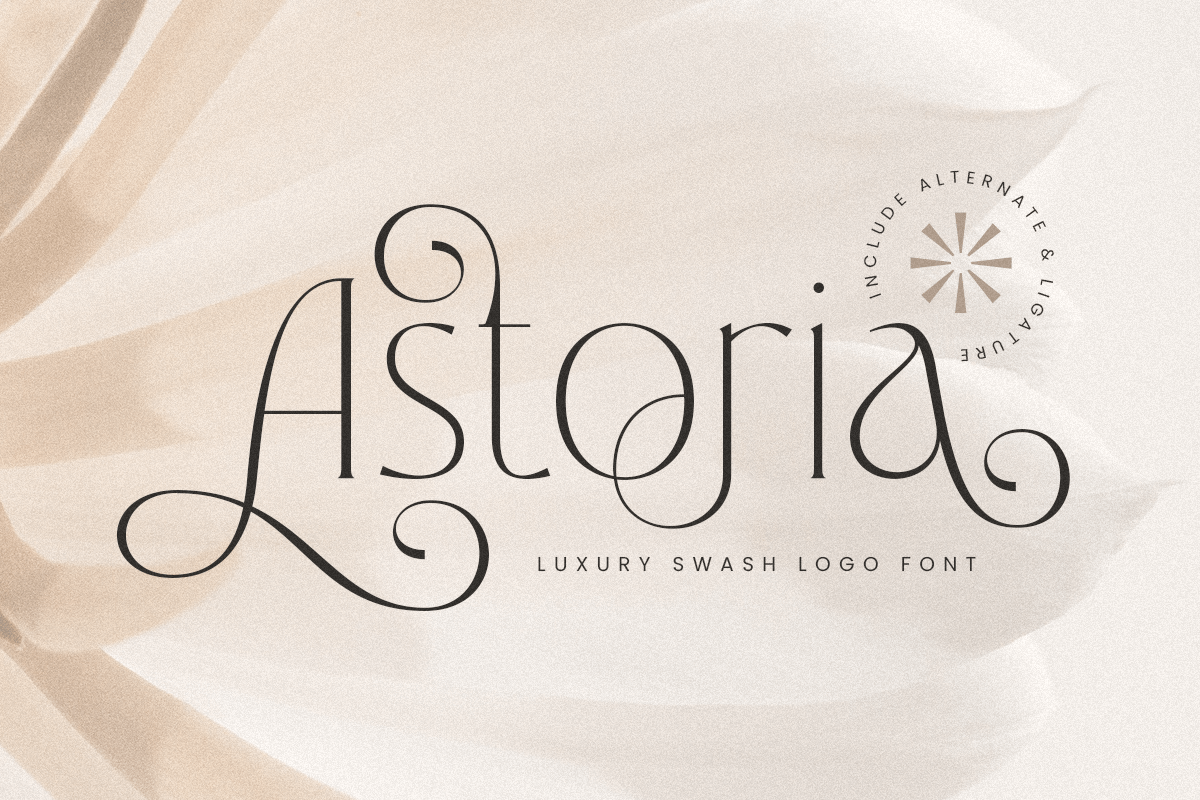
Astoria
-Luxury Swash Logo FontAstoria is a luxury swash font designed for those who seek elegance and sophistication in their branding. With its graceful swashes and refined letterforms, Astoria brings a touch of class to any logo design or high-end project. The font’s luxurious feel makes it perfect for upscale brands, premium products, and elegant invitations.
Inspired by classic calligraphy, Astoria combines traditional beauty with a modern twist. Its flowing curves and sophisticated swashes give it a timeless appeal, while its versatility allows it to shine in various applications. Whether you're crafting a stunning logo or enhancing your branding materials, Astoria delivers a distinctive and polished look.
Astoria offers unique ligatures and alternate characters, providing endless creative possibilities. Its attention to detail ensures that every letter is a work of art, making your designs stand out with elegance and grace.
Astoria Luxury Swash Logo Font Features:
Luxury Ligature & Alternative Characters Ready
Unique Punctuation, Number, and Symbol